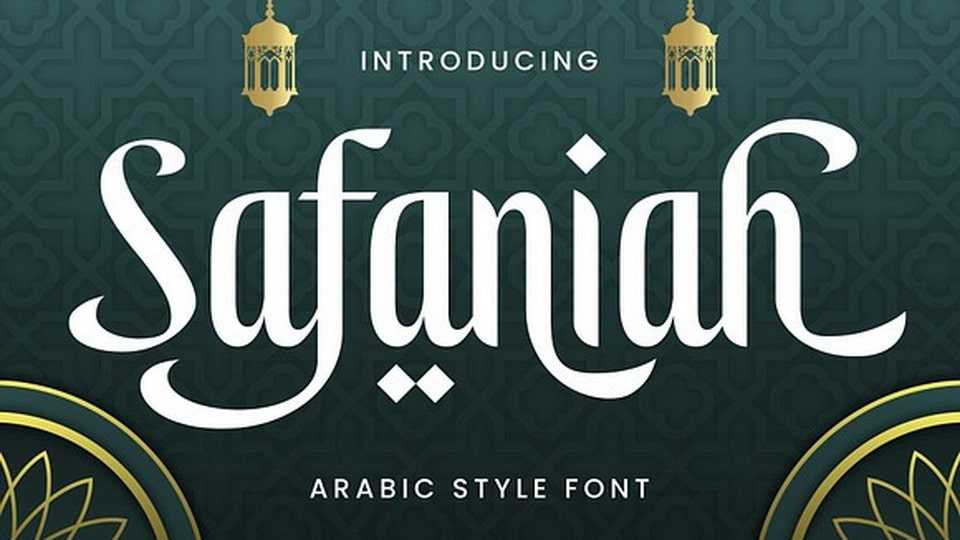
Download Safaniah font, the newest Arabic-style typeface crafted to elevate your creative projects. Its sleek, condensed shape is ideal for bold headlines or standout display text.